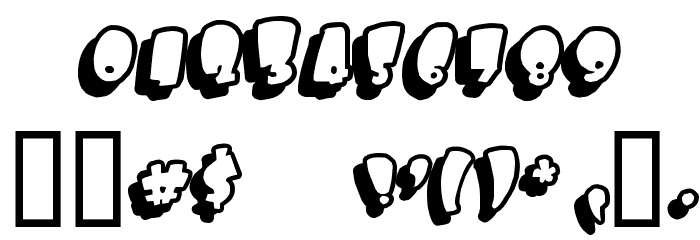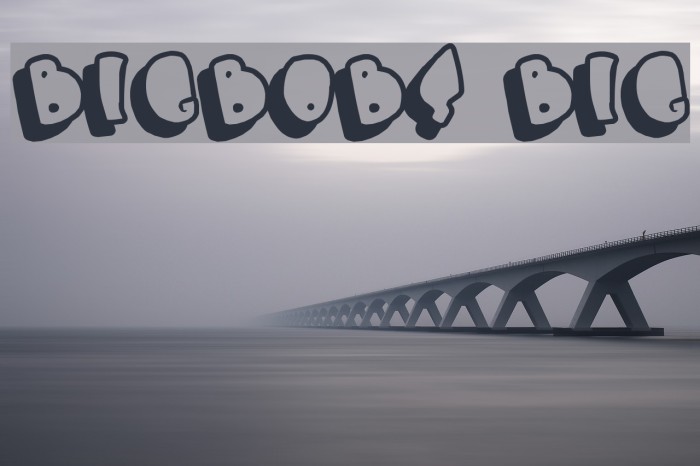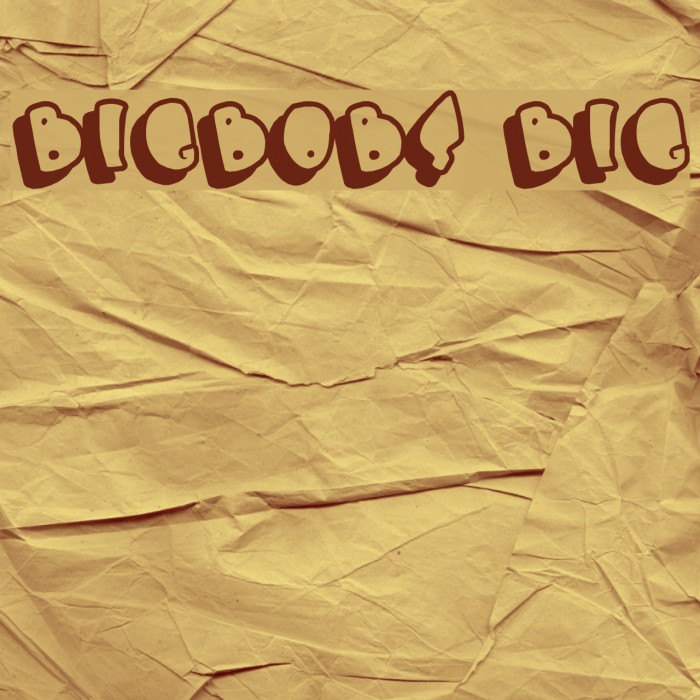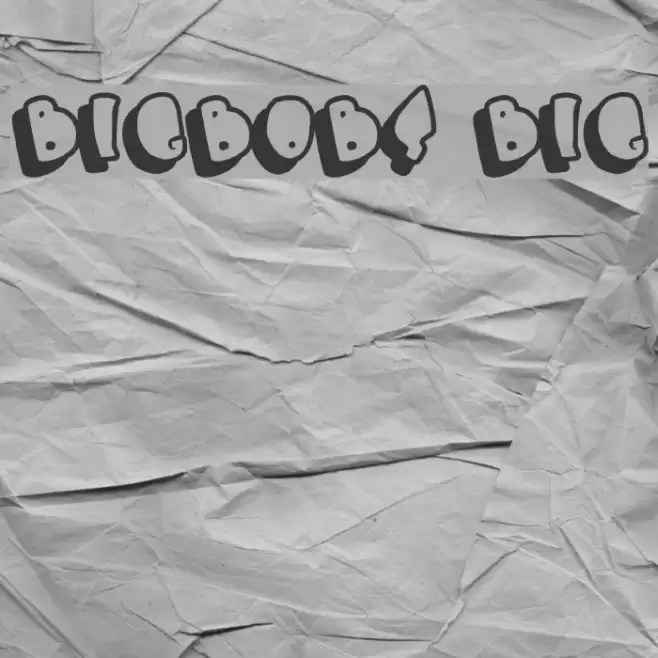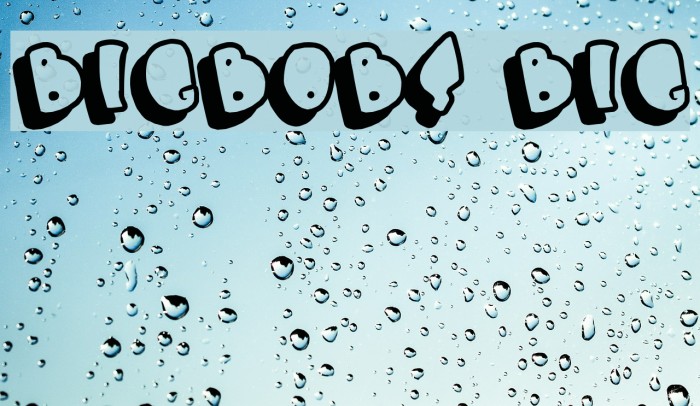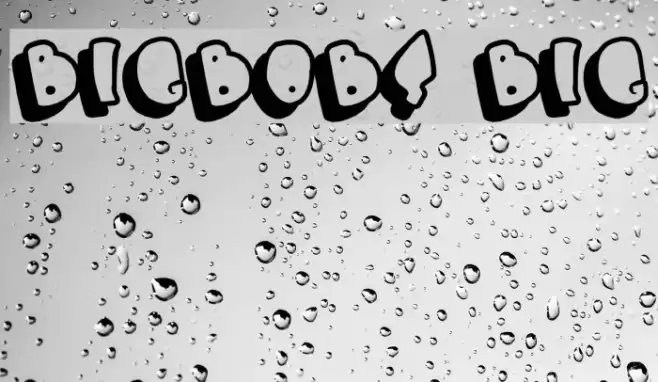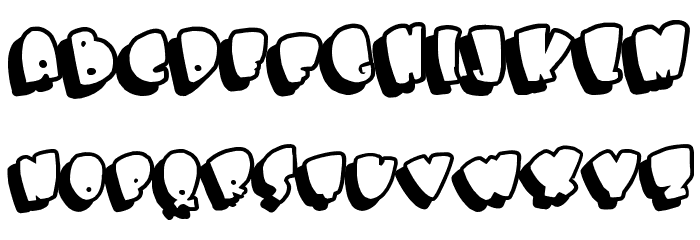
BIGBOBS BIG Font
BIGBOBS BIG Description
This playful and bold font features a cartoonish, bubble-like style with thick outlines and a shadow effect that gives it a three-dimensional appearance. Each character is rounded and exaggerated, creating a fun and whimsical look. The uppercase and lowercase letters maintain a consistent style, with the lowercase being slightly smaller but equally bold. Numbers and special characters follow the same design, ensuring a cohesive look across all text. The font's unique style makes it stand out, perfect for projects that require a lively and energetic feel.
| Width | Expanded |
| Overall Style | Playful, Cartoonish, Fun |
| Use Case | Headlines, Logos, Posters, Children's materials |
| Proposed Projects | Ideal for children's books, comic strips, playful branding, party invitations, and any project needing a fun, energetic vibe. |